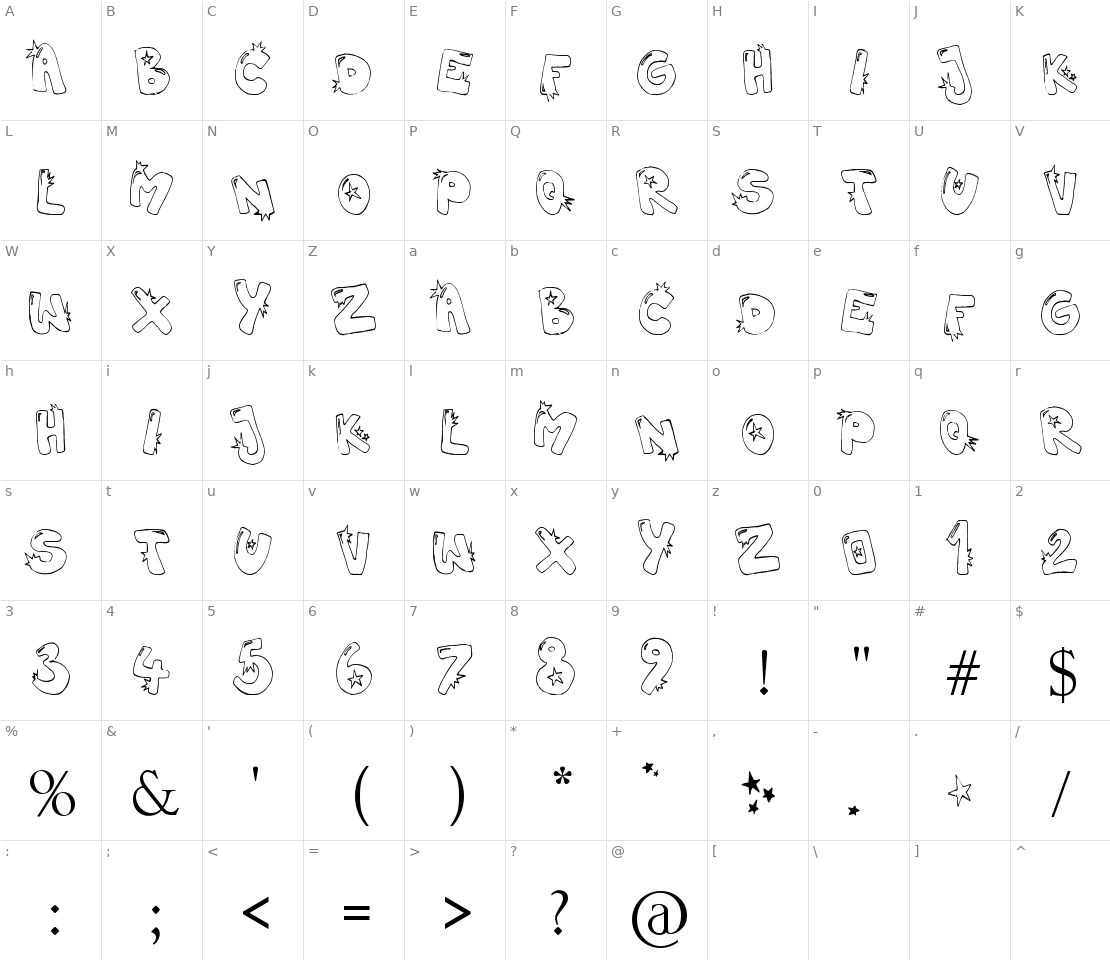
Hip Hop Barbie
by cody
Hip Hop Barbie is a bubbly outline display face by cody, with rounded, inflated letterforms and star accents that give it a distinctly playful, pop-culture energy. The hollow construction and cartoon proportions make it feel like something off a sticker sheet or toy packaging. Best kept to headlines, posters, and novelty projects where fun is the whole point.